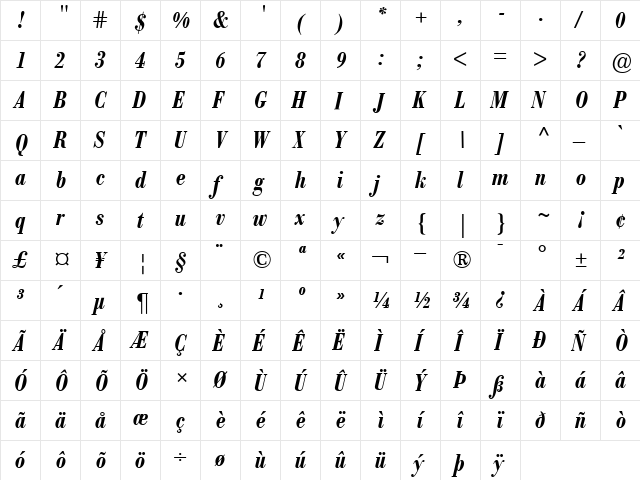
BodoniBE-CondensedMedium MediumItalic
Design Context for BodoniBE-CondensedMedium Typeface
BodoniBE-CondensedMedium is a composed and adaptable typeface that performs quietly and consistently across a wide range of design contexts. The slanted form adds forward momentum and visual energy. The condensed width makes it efficient for tight spaces without sacrificing legibility.
Pro Tip: Use BodoniBE-CondensedMedium for emphasis, pull quotes, and subheadings where its slanted energy can add rhythm to the layout.